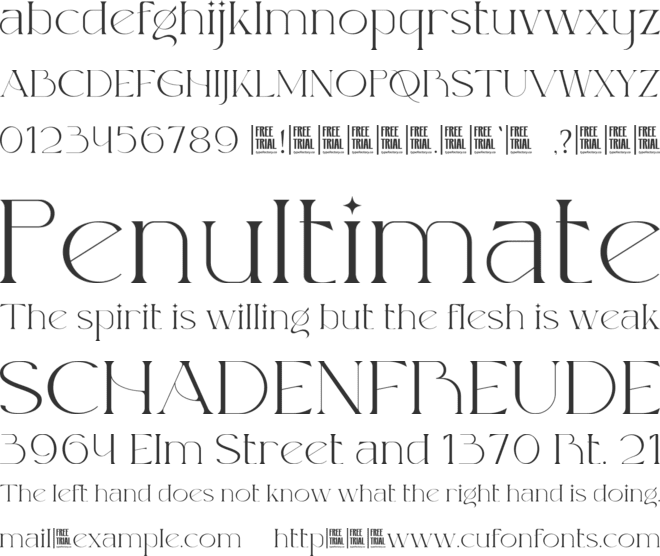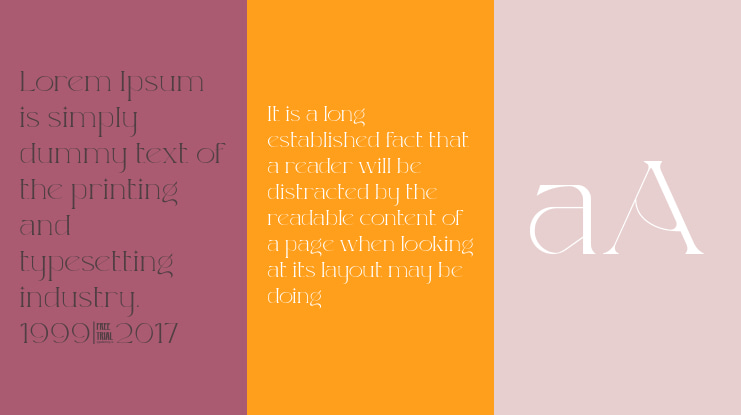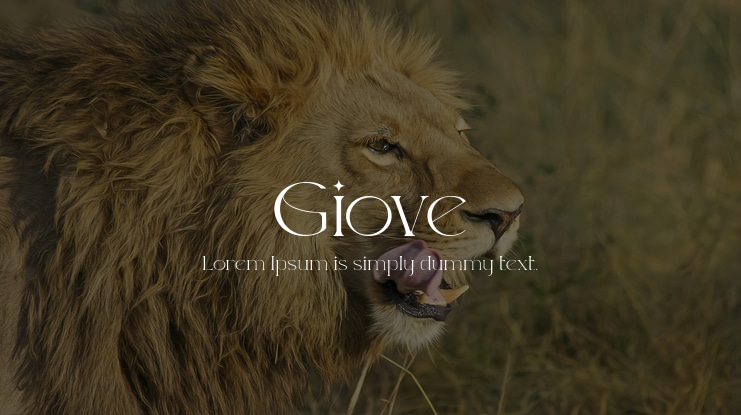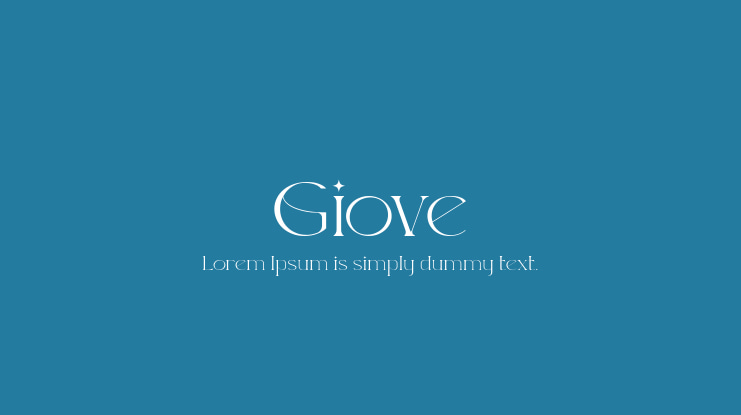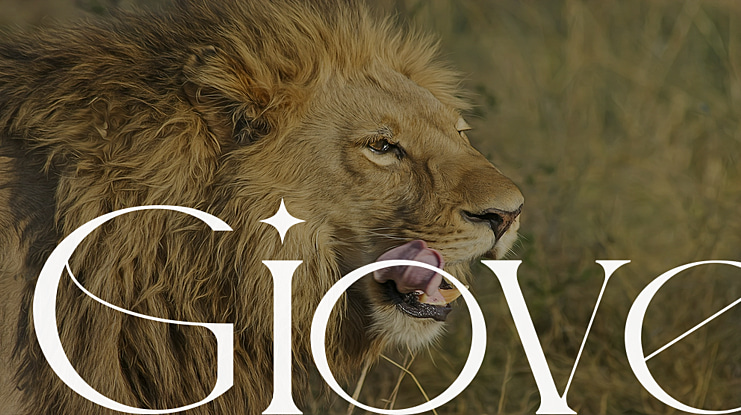
Giove Font
Giove is an modern display font.
Elegantly crafted and easily be matched to an incredible large set of projects.
Use this font to achieve an exquisite, yet subtle look and maximum versatility.